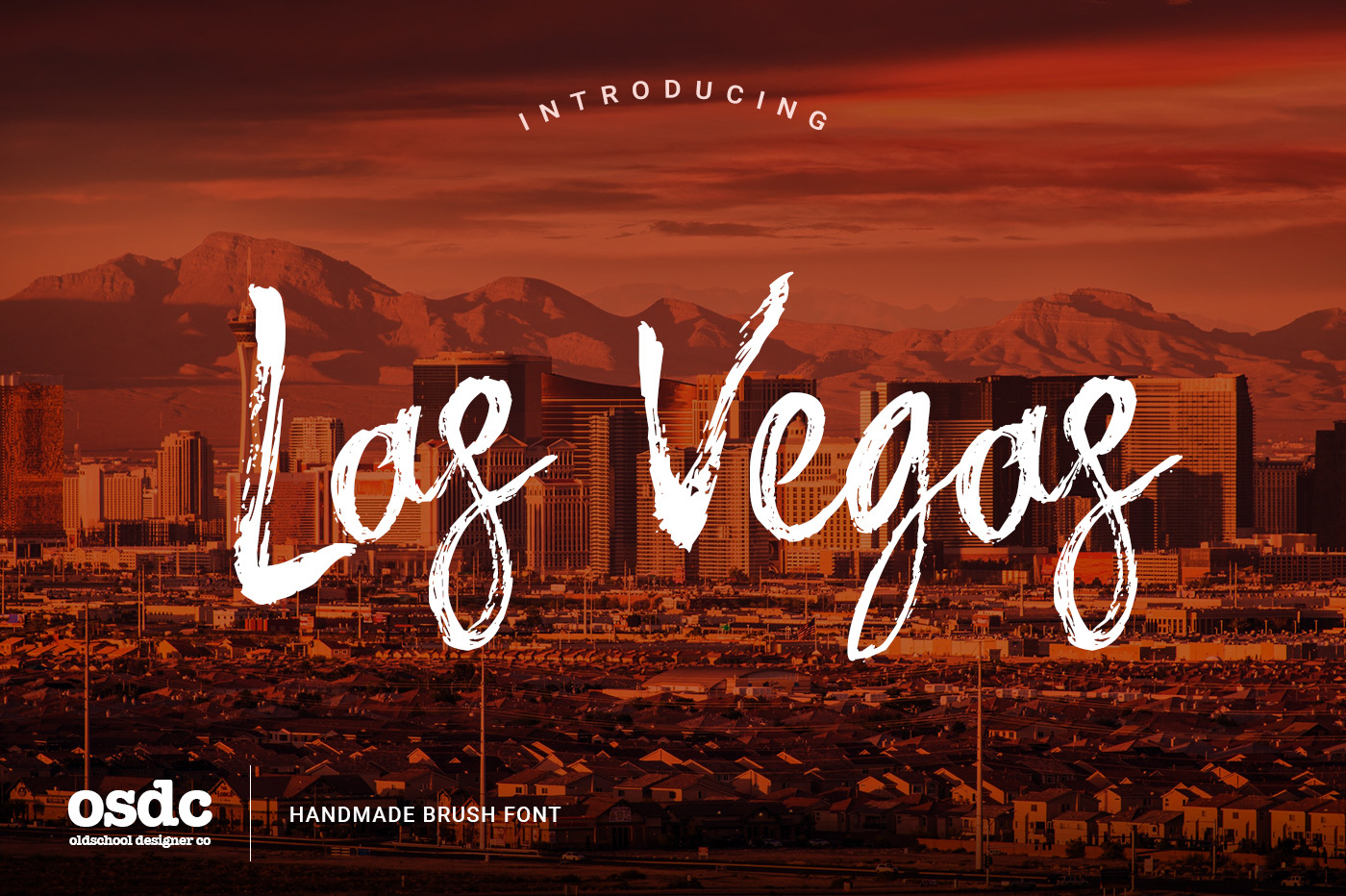
Las Vegas Brush Font
Las Vegas Brush Font is a hand-made font created by using thick brush.It is a lovely font that the thickness of linesare charming.